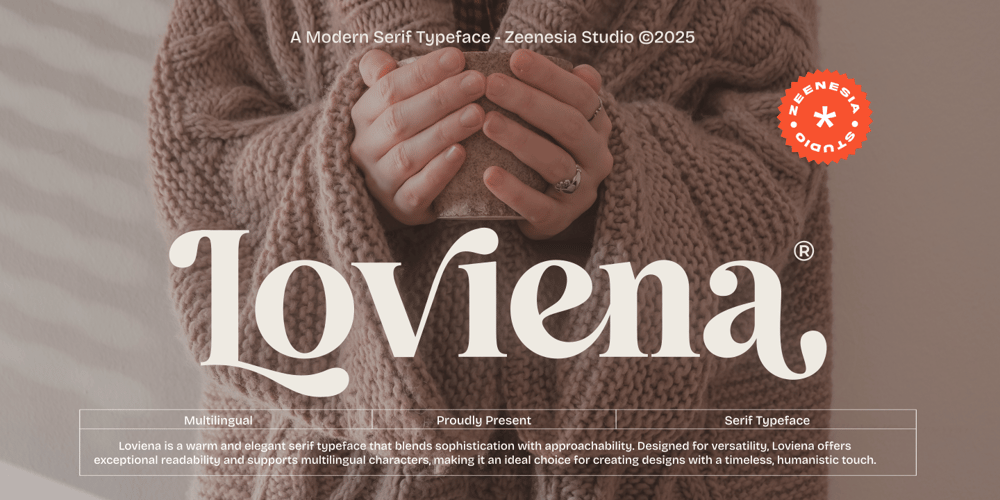
Loviena Font Family was designed by Doni Purwoko and published by Zeenesia Studio. Loviena contains 1 styles and family package options. Loviena is a warm and elegant serif typeface that blends sophistication with approachability. Its refined curves and smooth transitions make it perfect for branding, editorial layouts, and invitations.Designed for versatility, Loviena offers exceptional readability and supports multilingual characters, making it an ideal choice for creating designs with a timeless, humanistic touch.We hope you enjoy the font, please feel free to comment if you have any thoughts or feedback.Thanks for purchasing and glad to help you!